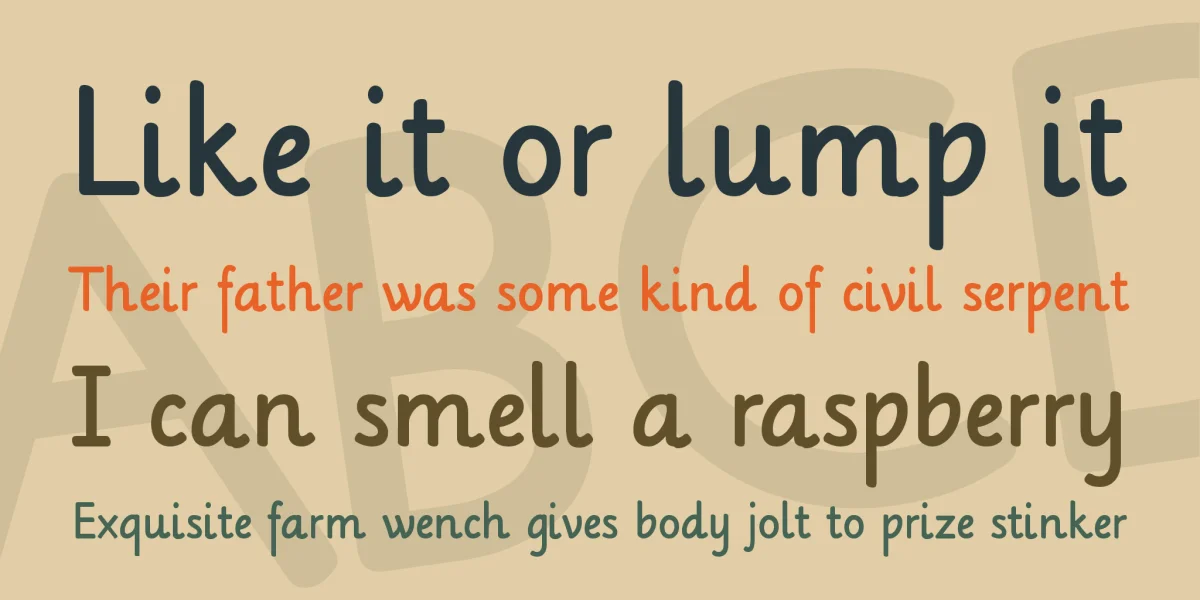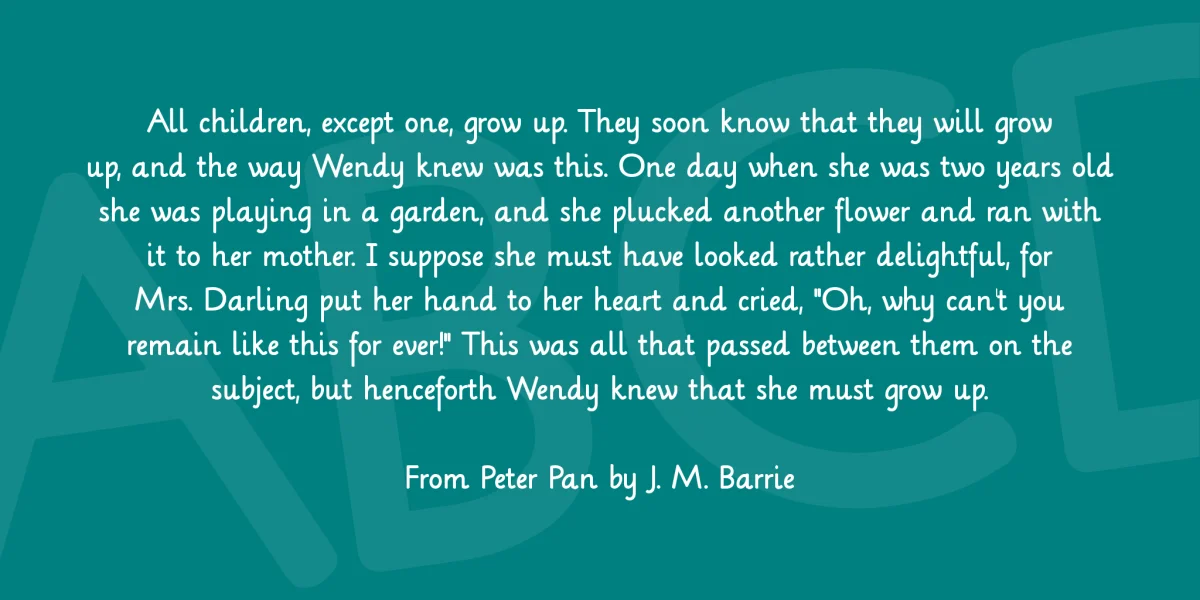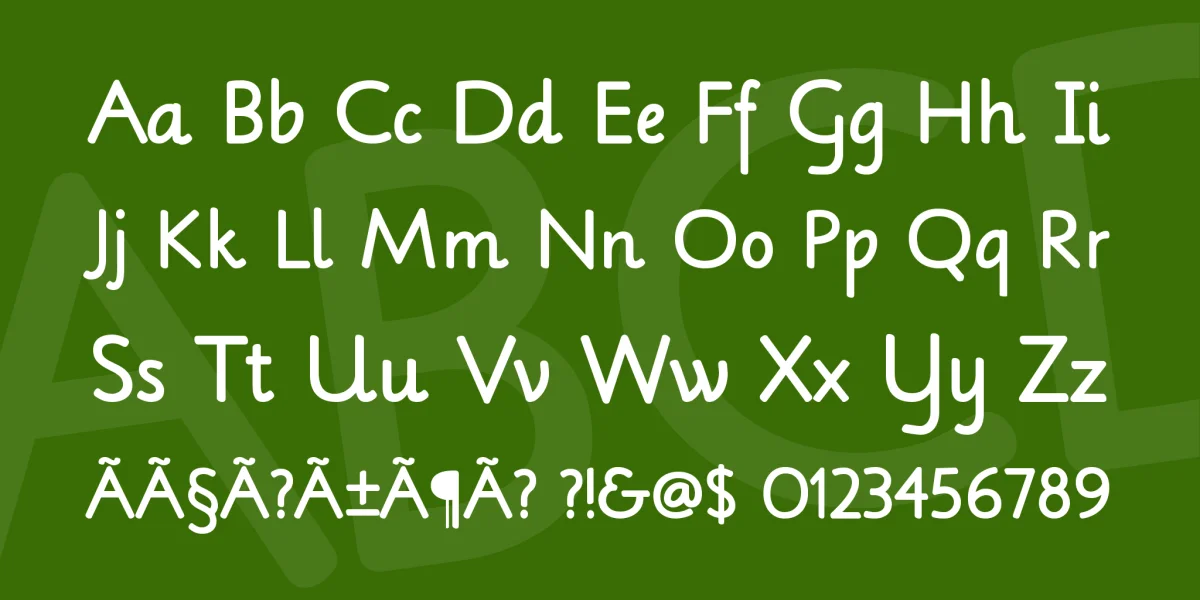
This font was named after Eli Lilly, the founder of the company (also called Eli Lilly) that now makes Prozac. This is the same guy who back in 1923 was behind the release of the first commercial samples of Insulin in the United States. Eli Lilly has now been dead for a while, but the pharmaceutical company still thrives on by merchandising happiness through chemistry.
Serotonin is important.
Can Lilly turn the mule into a horse?
Of course.
Can Lilly turn the horse into a jet?
You bet.
Will Lilly turn the jet into a fan?
They can.
Will Lilly turn the fan into a kite?
They might.
Will Lilly turn the kite into a drill?
They will.
Will Lilly turn the drill into a gun?
It's fun.
Get off the mule, have no fear
You have a bottle somewhere near
One more pill, to chase the tears
And happy hour, happy hour's here
The only way's up, never down
Lilly makes the world go round
Wash the pill down with beer
Coz happy hour, happy hour's here
happy hour
happy hour's here